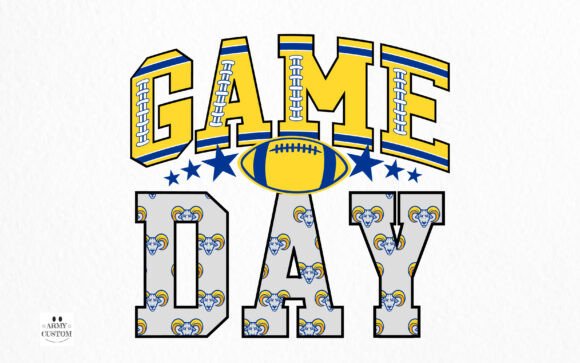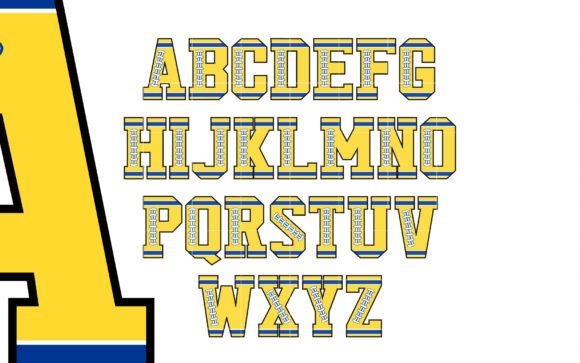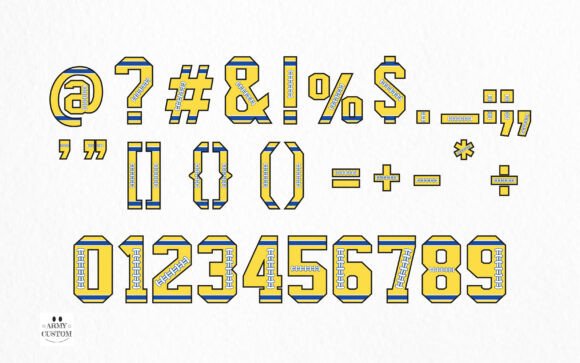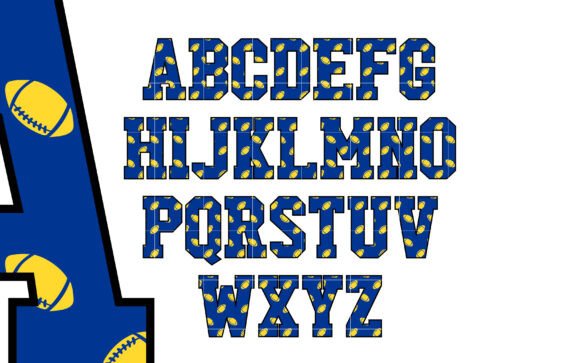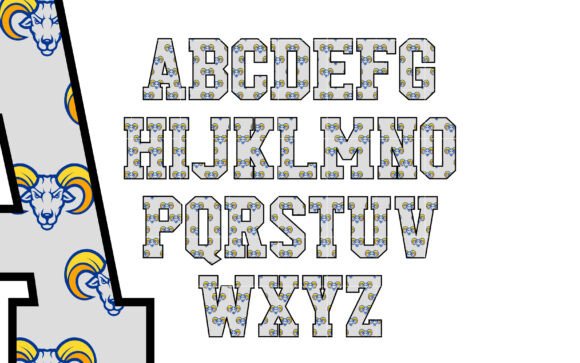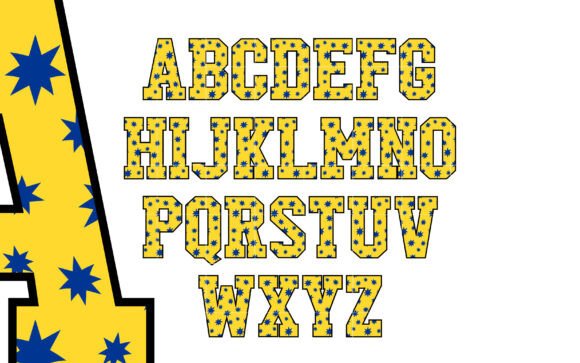
Unleash the Power of American Football with the Rams Font
Immerse yourself in the exhilarating world of gridiron with the American Football Rams Bundle. This innovative font, with its athletic underpinnings, captures the essence of American football in every letter. Seamlessly combining design and sport, it exudes dynamism and competitive spirit, making it a quintessential choice for those seeking to communicate strength, agility, and unyielding spirit.
The Inspiration Behind the Font
Conceived with a unique blend of creativity and passion, this font emerges from a place of deep inspiration, an homage to the beloved American pastime. The American Football Rams Font is more than just a typography – it’s a statement piece that echoes the fervor and excitement of the game. Whether you’re a designer, crafter, or simply a football enthusiast, this font is sure to resonate with you.
Design and Features
Unlock Creative Flexibility
The American Football Rams Font is an excellent choice for designers and crafters looking to add a touch of sports-inspired style to their projects. Whether you’re creating:
- Team logos and branding materials
- Sports-themed crafts and decorations
- Event invitations and flyers
this font is sure to bring a unique and captivating element to your designs.
Key Benefits
The American Football Rams Font offers several key benefits, including:
- Unique and distinctive design inspired by American football
- Perfect for designers, crafters, and football enthusiasts
Dive into expressive typography, where sport meets style with the American Football Rams Army Font. With its bold design, compatibility with various software, and creative flexibility, this font is an excellent addition to any designer’s or crafter’s toolkit. Immerse yourself in the world of gridiron and unleash the power of American football with the American Football Rams Font.